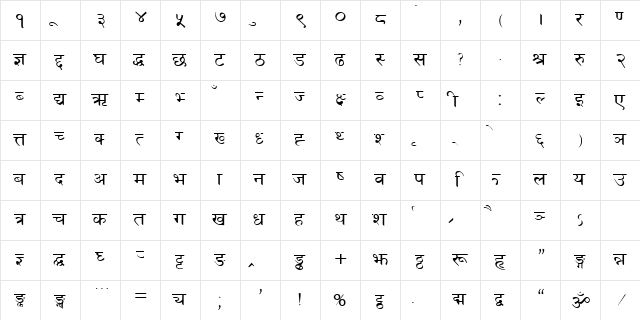
Ritu RITU
Design Context for Ritu Typeface
Ritu is a composed and adaptable typeface that performs quietly and consistently across a wide range of design contexts.